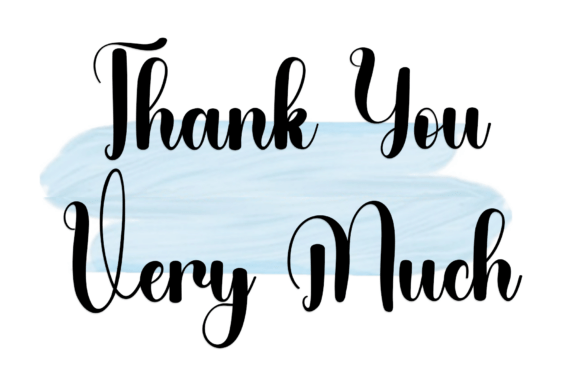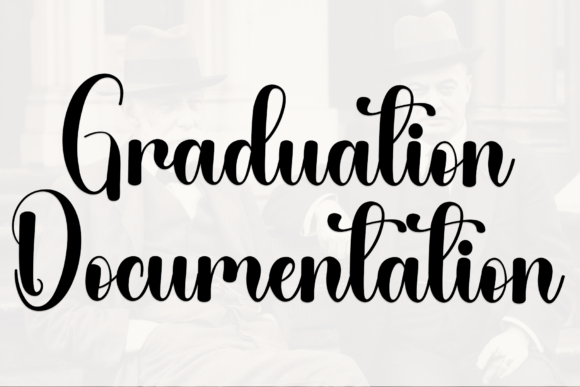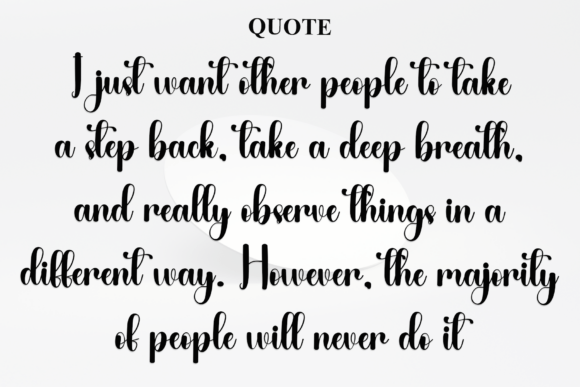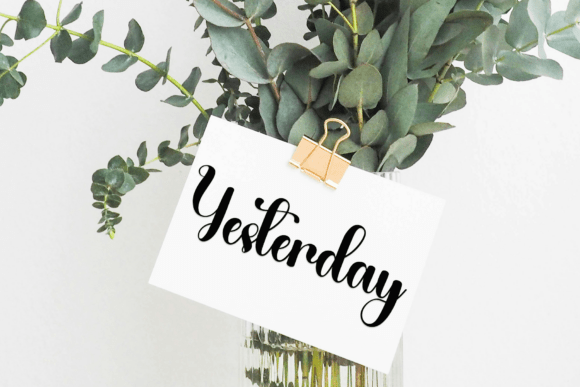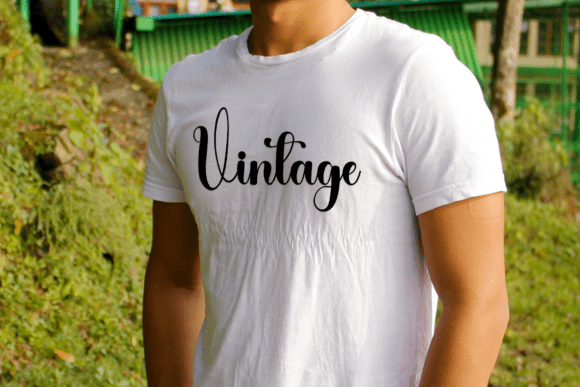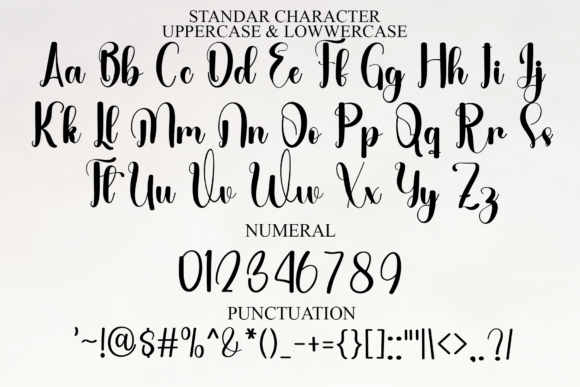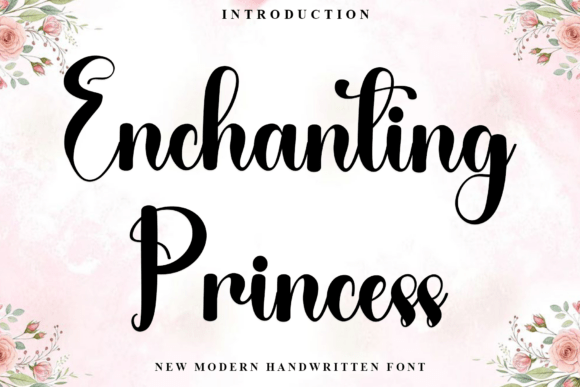
Introducing the Enchanting Princess Font: A Festive and Merry Typeface for Your Holiday Designs
Are you looking for a font that captures the essence of the holiday season? Do you want to add a touch of magic to your designs, greeting cards, and gift tags? Look no further than the Enchanting Princess Font, a whimsical and decorative typeface that brings a cheerful and nostalgic ambiance to your words.
The Perfect Font for Holiday-Themed Projects
The Enchanting Princess Font is specifically designed to evoke the spirit of the holiday season. With its intricate details and festive flair, this font is perfect for designers and crafters who want to create holiday-themed projects that stand out. Whether you’re designing greeting cards, gift tags, or social media graphics, this font is sure to add a touch of enchantment to your work.
What Makes the Enchanting Princess Font So Special?
So, what sets the Enchanting Princess Font apart from other fonts? Here are a few features that make it truly special:
- Decorative Elements: The Enchanting Princess Font features decorative elements that add a touch of whimsy and festivity to your designs. From intricate swirls to festive holly leaves, this font has everything you need to create holiday-themed projects that pop.
- PUA Encoding: The Enchanting Princess Font is PUA encoded, which means you can access all of the amazing glyphs and ligatures with ease. This makes it easy to use the font in your designs, even if you’re not a professional typographer.
- Whimsical Flair: The Enchanting Princess Font has a whimsical flair that’s perfect for holiday-themed projects. With its curly cues and playful details, this font is sure to add a touch of personality to your designs.
How to Use the Enchanting Princess Font in Your Designs
Using the Enchanting Princess Font in your designs is easy. Here are a few tips to get you started:
- Pair it with Other Fonts: The Enchanting Princess Font pairs well with other fonts, especially those with a more modern or minimalist aesthetic. Try pairing it with a clean sans-serif font to create a striking contrast.
- Use it for Headlines: The Enchanting Princess Font is perfect for headlines and titles. Use it to add a touch of festivity to your designs and draw attention to your message.
- Experiment with Colors: The Enchanting Princess Font looks great in a variety of colors, from bright and bold to soft and pastel. Experiment with different colors to find the perfect look for your design.
Ideas for Using the Enchanting Princess Font
Here are a few ideas for using the Enchanting Princess Font in your designs:
- Greeting Cards: Use the Enchanting Princess Font to create festive greeting cards for the holiday season. Add a personal touch with a handwritten message or a special photo.
- Gift Tags: The Enchanting Princess Font is perfect for gift tags. Add a touch of festivity to your gifts with a custom tag featuring your recipient’s name.
- Social Media Graphics: Use the Enchanting Princess Font to create social media graphics that stand out. Add a festive touch to your posts and stories with a custom graphic featuring your favorite holiday message.
- Holiday-Themed Projects: The Enchanting Princess Font is perfect for holiday-themed projects, such as Christmas party invitations, New Year’s Eve flyers, or Valentine’s Day cards.
The Enchanting Princess Font is a festive and merry typeface that’s perfect for the holiday season. With its decorative elements, whimsical flair, and PUA encoding, this font is sure to add a touch of enchantment to your designs. Whether you’re a designer or crafter, the Enchanting Princess Font is a must-have for any holiday-themed project. So why wait? Download the Enchanting Princess Font today and let your typography shine with the magic of Beautiful Font!